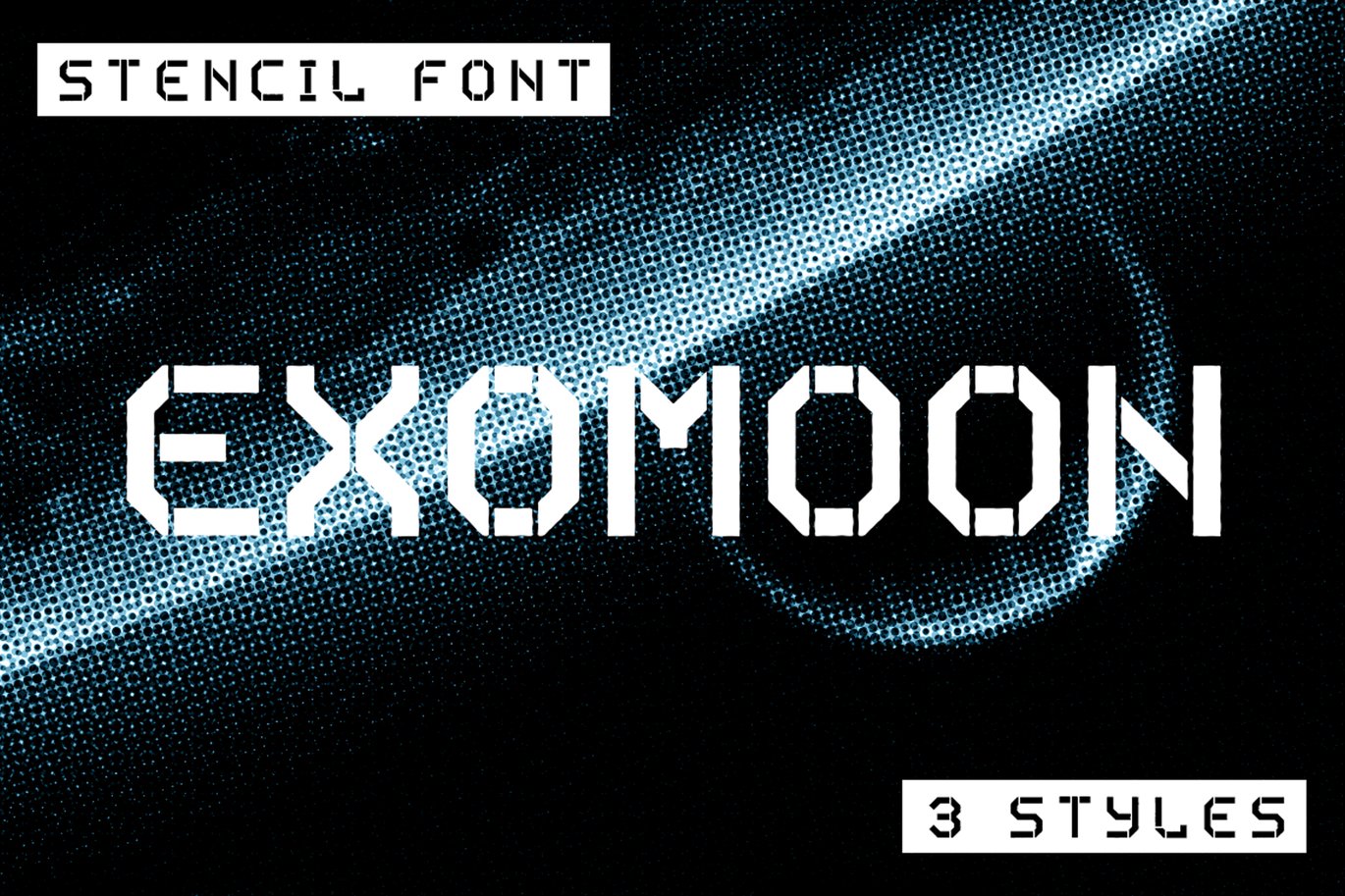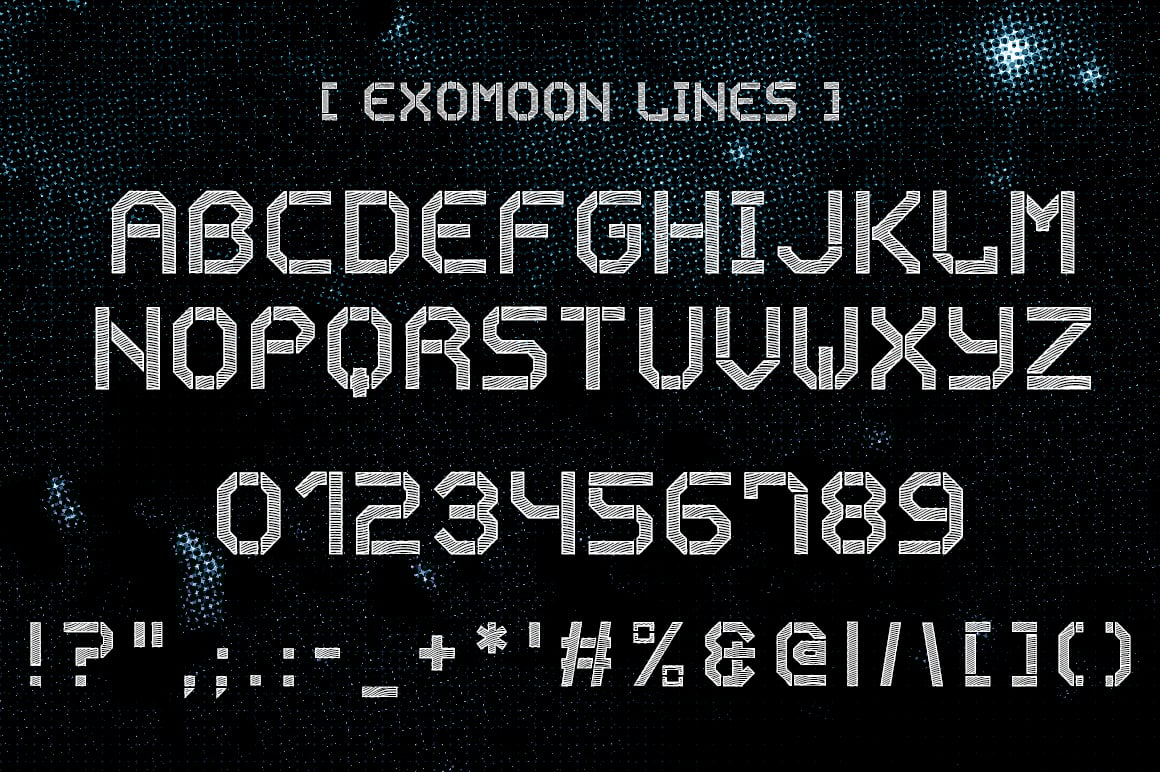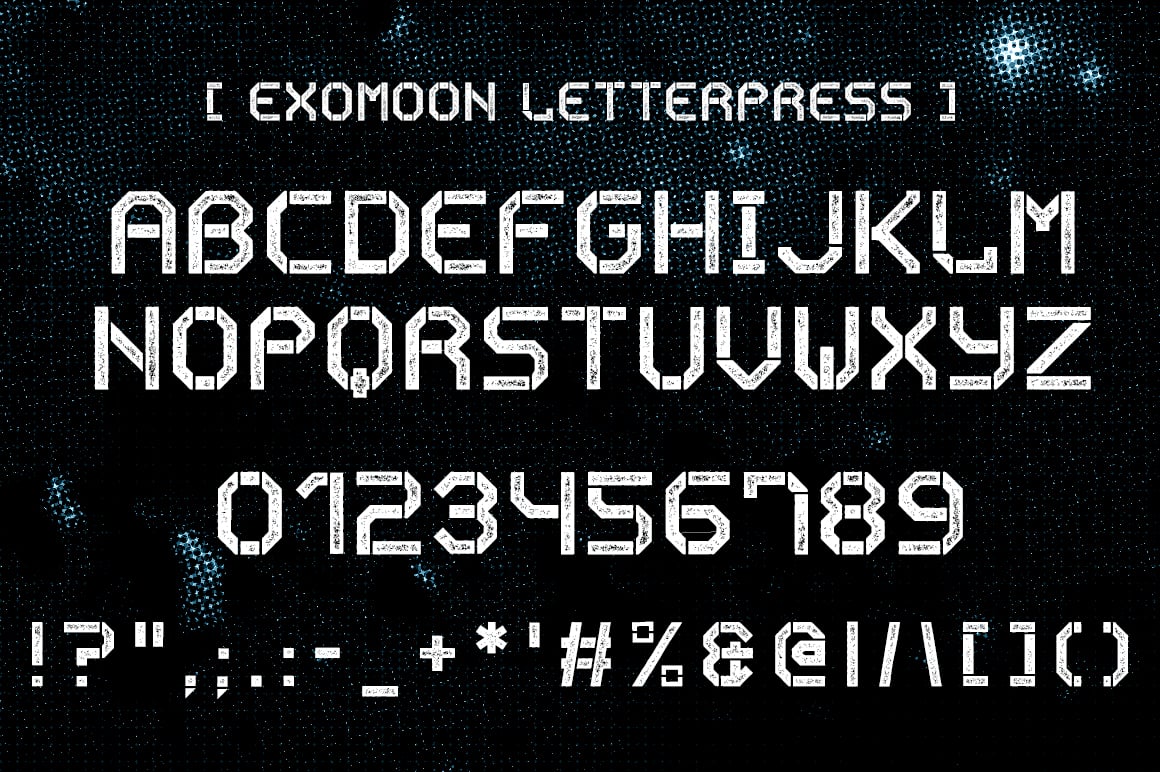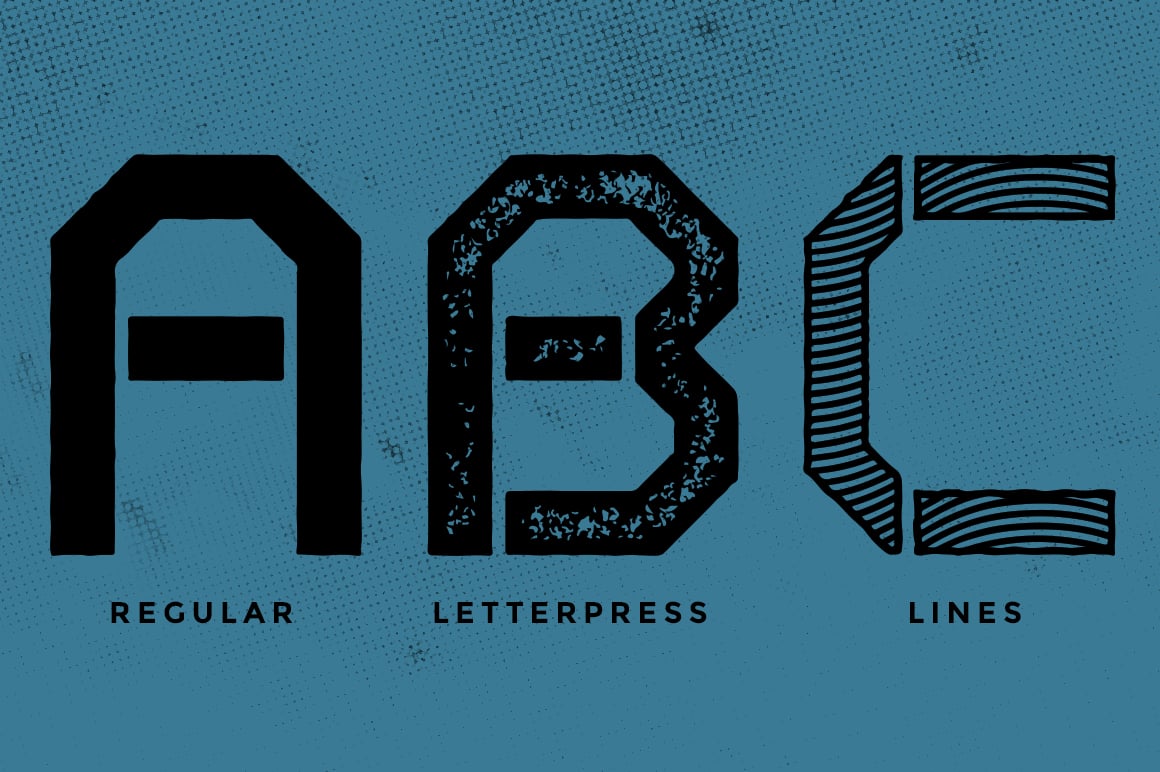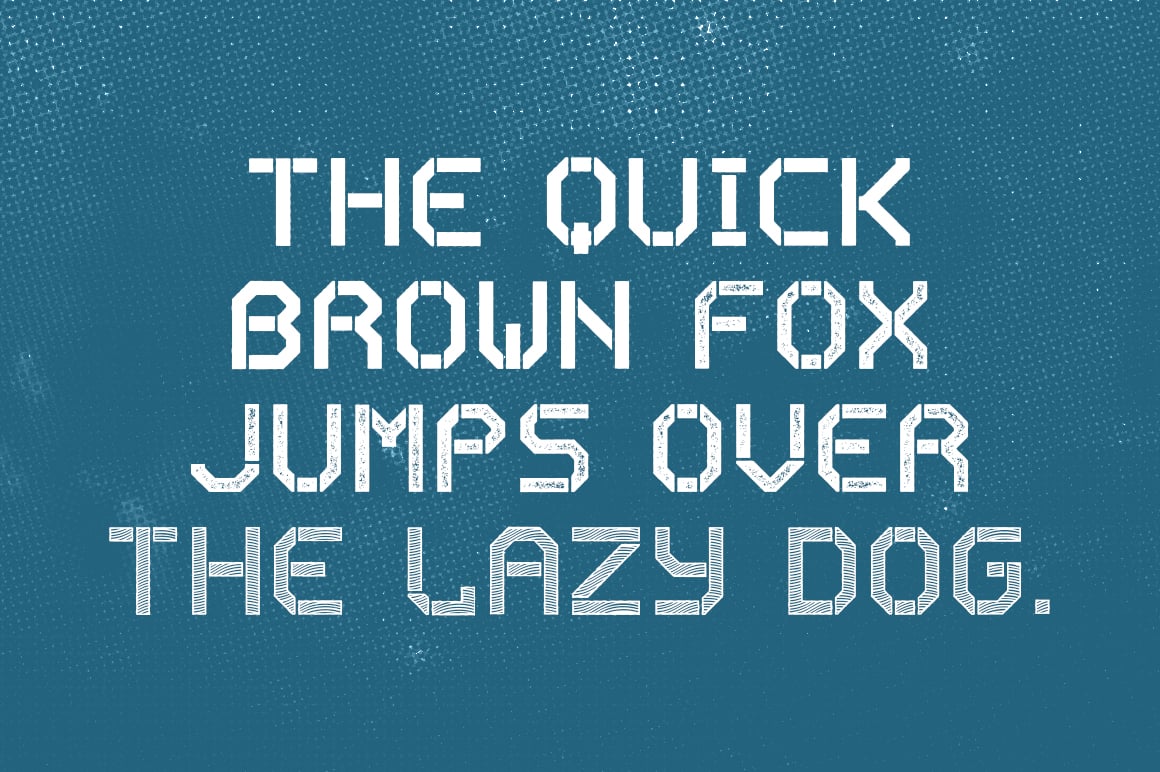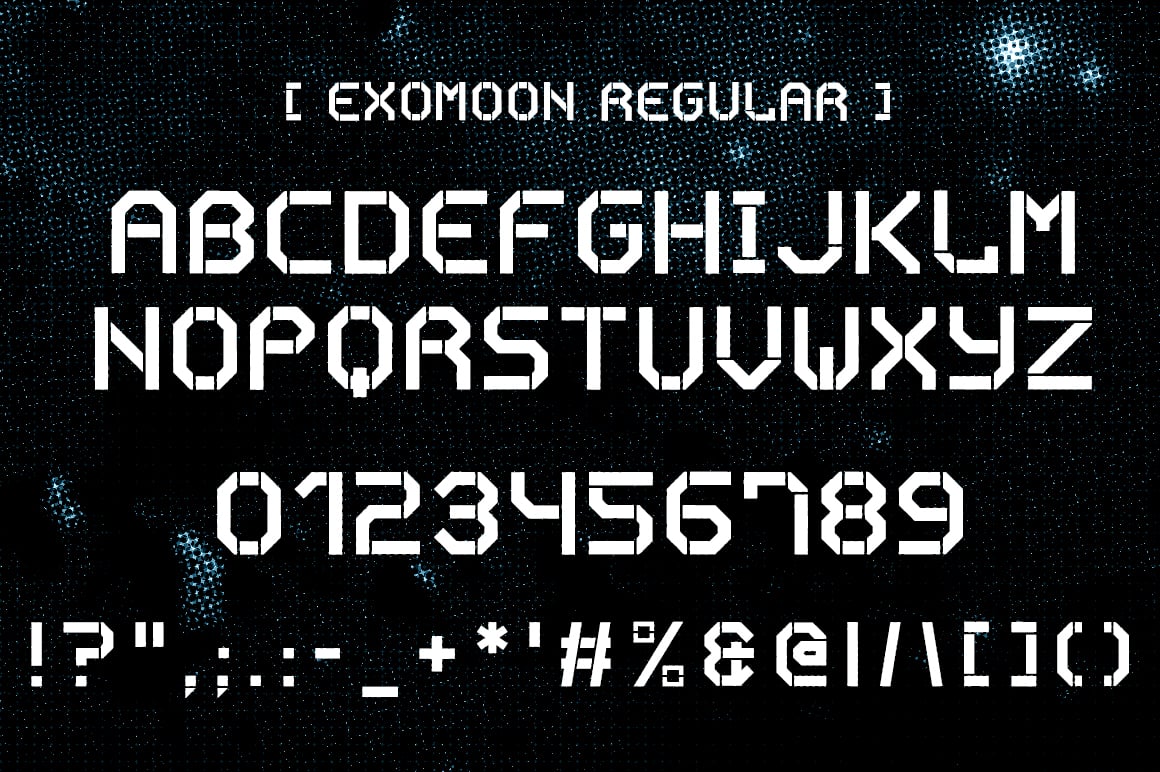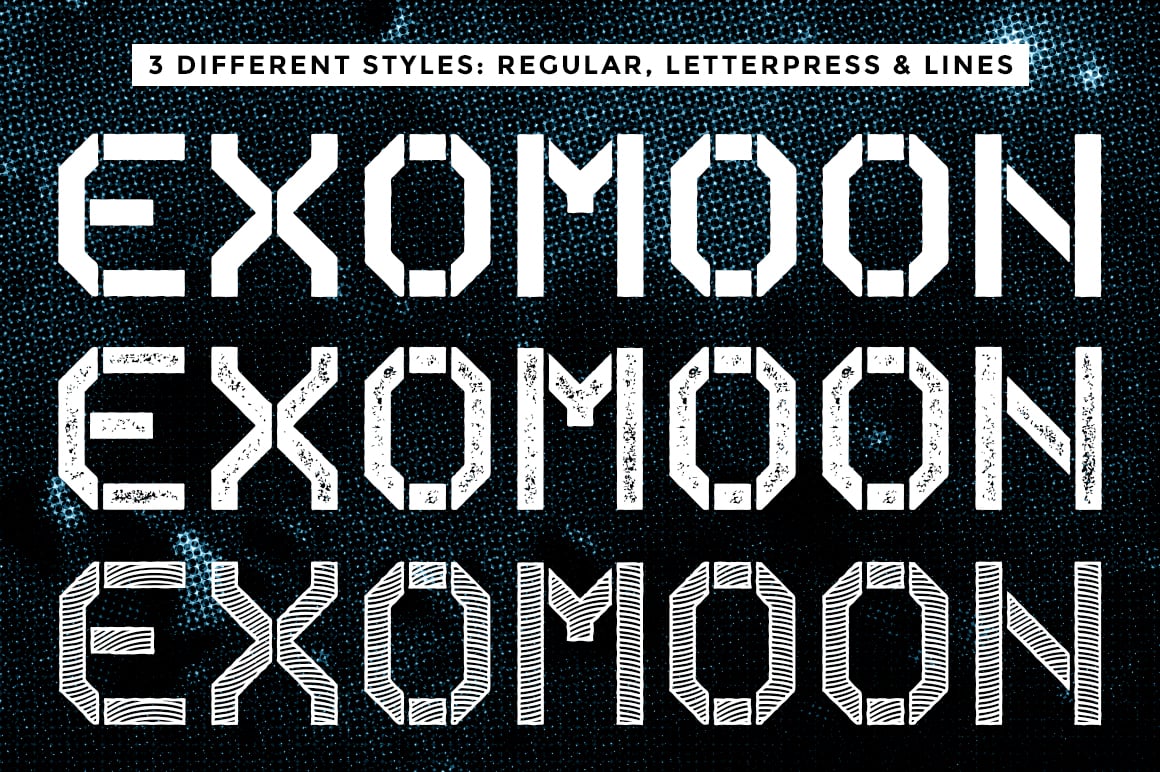
Exomoon Display Stencil Font
Exomoon is an uppercase display stencil font. The letters have slightly irregular edges, for a more “handmade look”.
There are three different versions included: regular, letterpress and lines.
► Glyphs included: Letters from A to Z, numbers from 0 to 9, and a few other punctuation & symbols glyphs (see pictures for a preview of all the glyphs).
► This is an uppercase/all caps font – no lowercase.